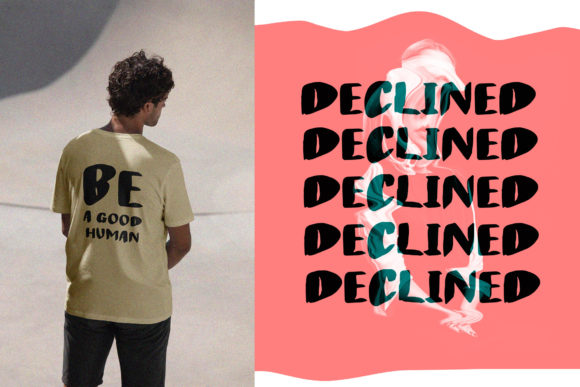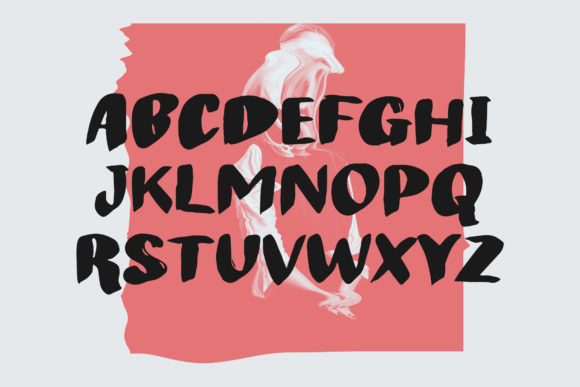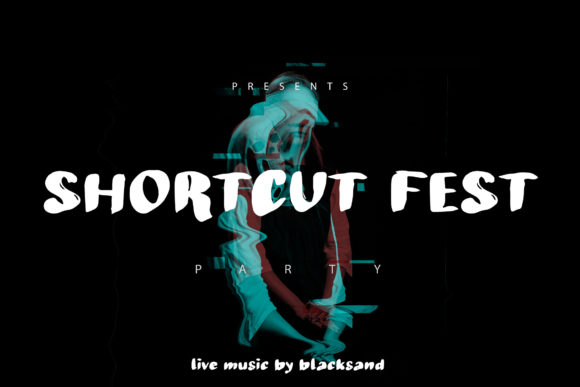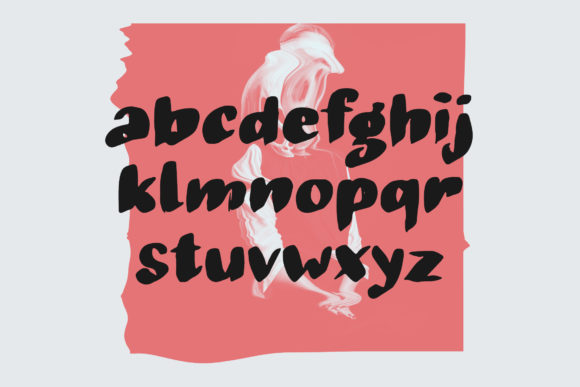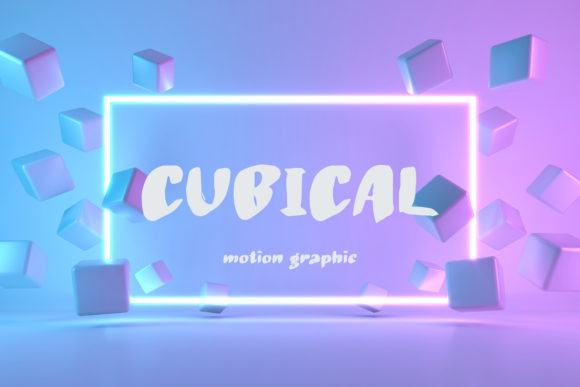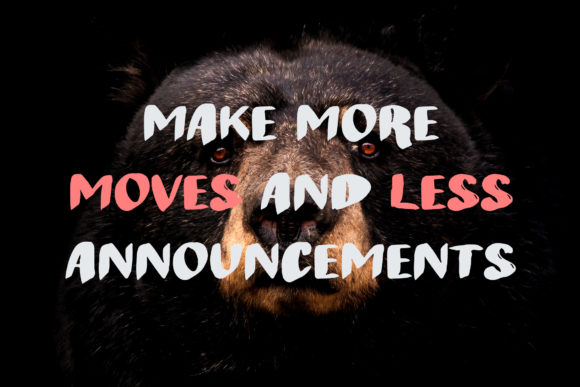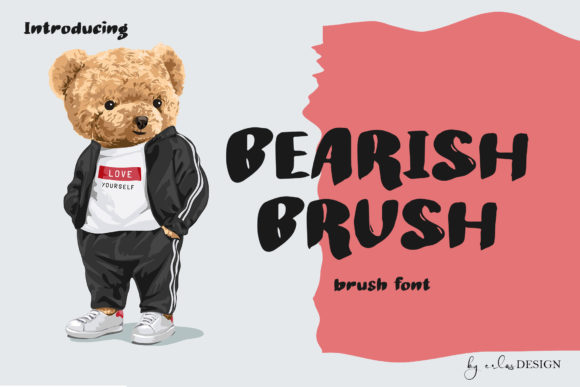
Bearish Brush Font: Elevate Your Designs with a Hand-Drawn Twist
In the world of typography, fonts play a crucial role in conveying the tone and personality of a design. For designers and crafters looking to add a touch of uniqueness to their creations, the Bearish Brush Font is an excellent choice. This display font features letters and characters that appear to have been hand-drawn with a brush, giving it a distinctive and artistic feel.
The Unique Charm of Bearish Brush Font
Bearish Brush Font is a one-of-a-kind display font that boasts a hand-drawn aesthetic, reminiscent of traditional brush calligraphy. Each letter and character has been carefully crafted to resemble the imperfect, yet charming strokes of a brush. This font’s uniqueness lies in its ability to add a touch of personality to any design, making it perfect for projects that require a creative and artistic flair.
One of the standout features of Bearish Brush Font is its versatility. Regardless of the topic or theme, this font can be used to elevate any creation. Whether you’re designing a logo, creating a social media graphic, or crafting a website, Bearish Brush Font is an incredible asset to have in your font library. Its adaptability makes it an excellent choice for designers who work on a wide range of projects, from digital designs to print materials.
Bearish Brush Font is ideal for designers and crafters who enjoy working on creative projects. Its hand-drawn style makes it perfect for:
- Logos and branding materials: Add a touch of personality to your logo and branding materials with this unique font.
- Social media graphics: Create eye-catching social media graphics that stand out from the crowd.
- Web design: Use Bearish Brush Font to add a creative twist to your website’s typography.
- Print materials: From brochures to business cards, this font is perfect for any print material that requires a touch of elegance and sophistication.
Why Choose Bearish Brush Font?
With so many fonts available, why choose Bearish Brush Font? Here are a few reasons why this font stands out:
- Unique and artistic: Its hand-drawn style sets it apart from other fonts, making it perfect for designers who want to add a creative twist to their designs.
- High-quality design: Each letter and character has been carefully crafted to ensure a high level of quality and attention to detail.
Tips for Using Bearish Brush Font
To get the most out of Bearish Brush Font, here are a few tips:
- Use it sparingly: While Bearish Brush Font is a beautiful font, it’s best used sparingly to avoid overwhelming the design.
- Pair it with other fonts: Experiment with pairing Bearish Brush Font with other fonts to create a unique and visually appealing typography.
- Adjust the size and color: Play around with the size and color of the font to create a design that’s tailored to your needs.
In conclusion, Bearish Brush Font is a unique and artistic display font that’s perfect for designers and crafters looking to add a touch of personality to their creations. Its hand-drawn style, versatility, and high-quality design make it an excellent choice for a wide range of projects. Whether you’re designing a logo, creating a social media graphic, or crafting a website, Bearish Brush Font is an incredible asset to have in your font library.